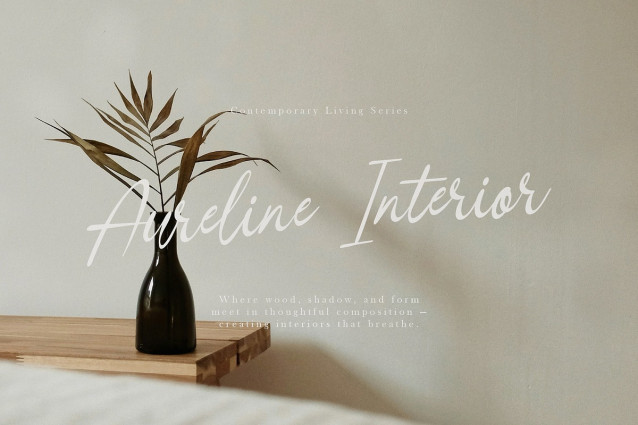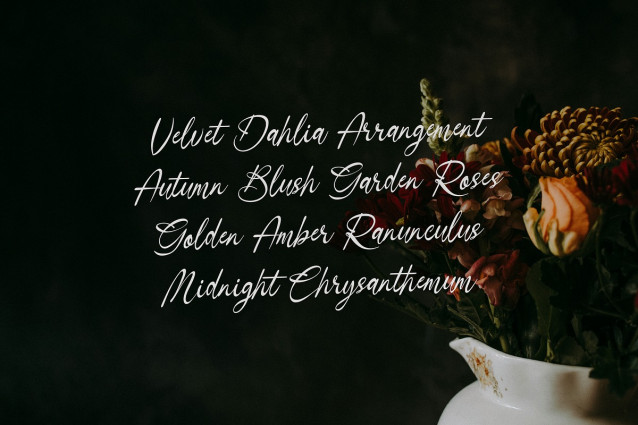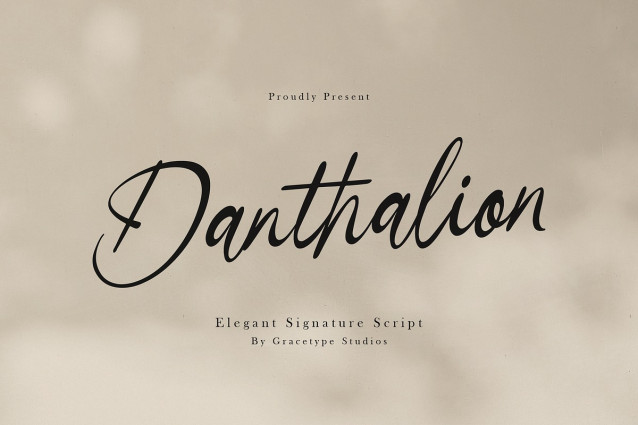
Danthalion Script Font
Danthalion Script Font | Elegant Signature Script, from Gracetypestudio, suitable for any projects such as: logos, branding projects, homeware designs, product packaging, mugs, quotes, posters, shopping bags, t-shirts, book covers, name card, invitation cards, greeting cards, label, photography, watermark, special events, and all your other lovely projects that need a Script taste.